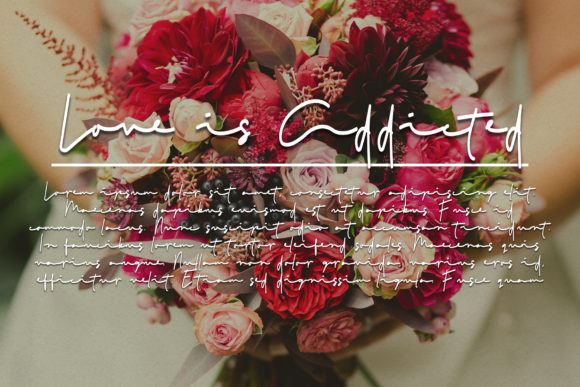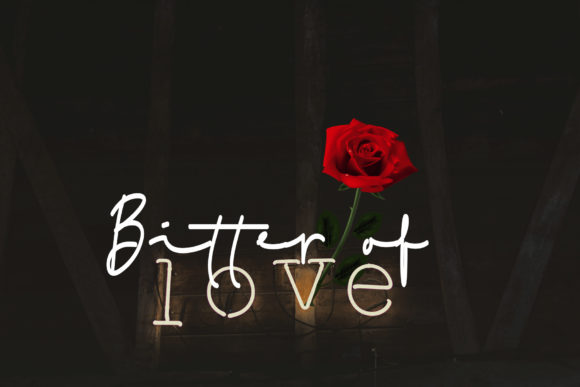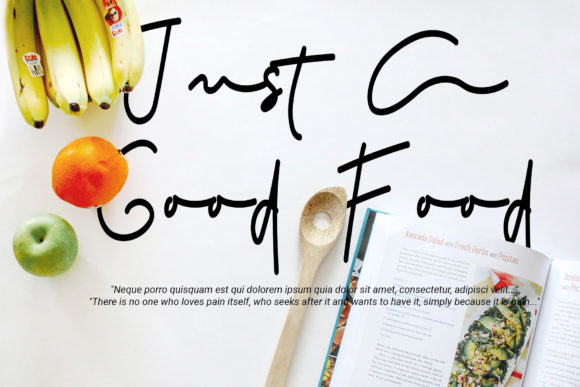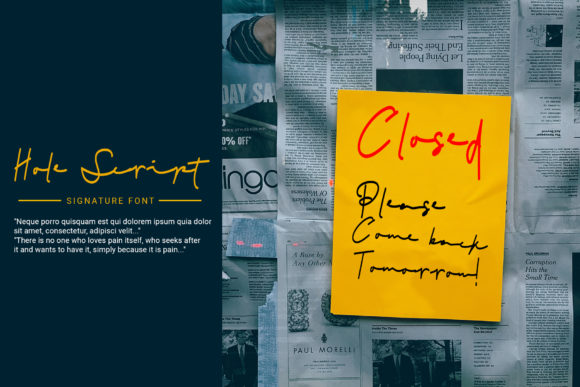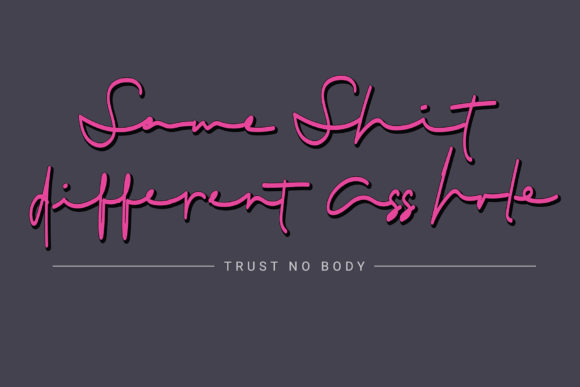
Hole Script Font
About Hole Script Font
Hole is a unique handwritten font that features bold elements. It will add an authentic touch to a big variety of design projects.